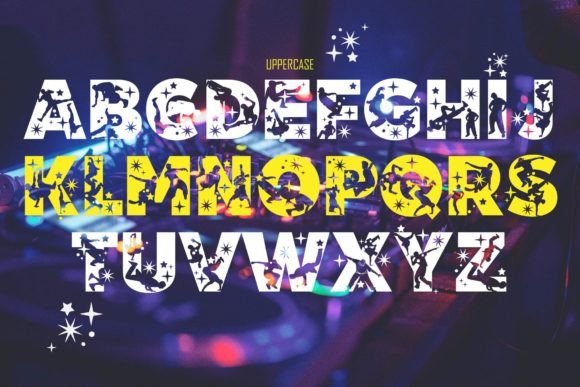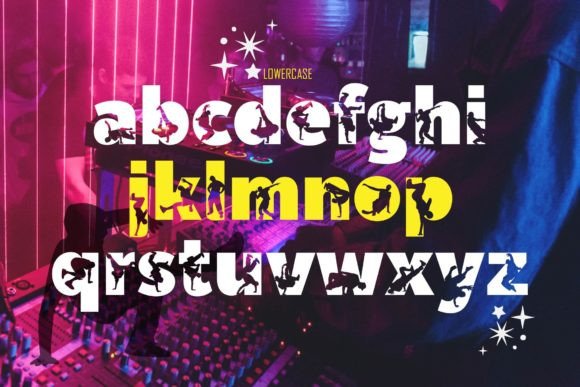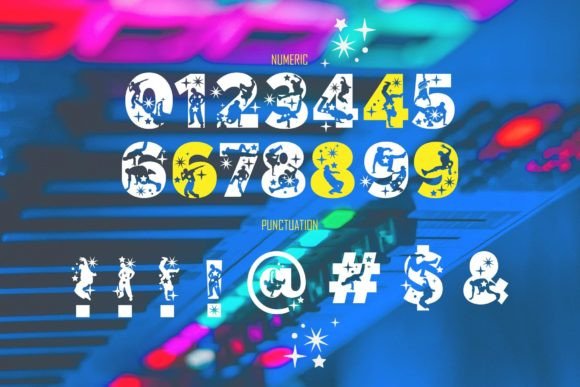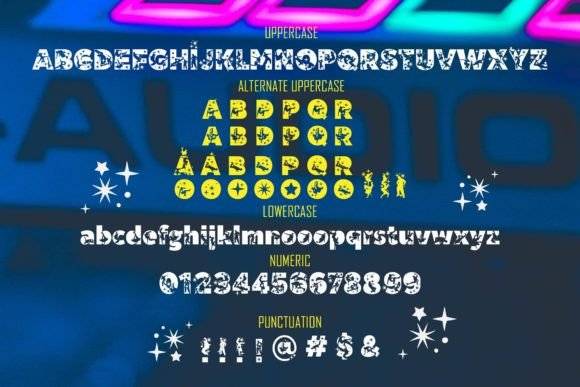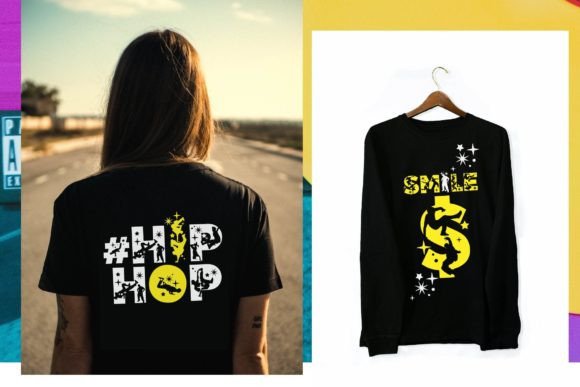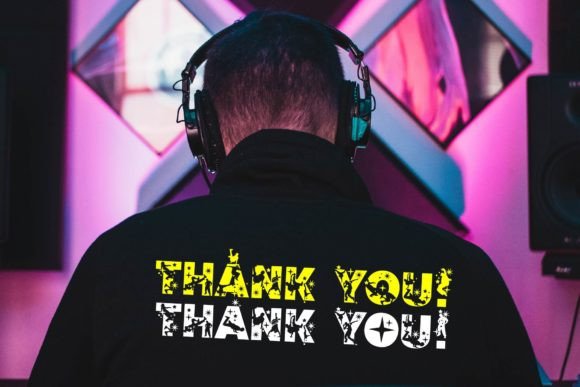
Get Ready to Groove with Break Dancing Font
Enter Break Dancing Font – a bold, cool, and assertive decorative font that will bring fun and energy to any design project. Whether you’re working on a poster, a logo, or a digital graphic, this font is the perfect addition to make your creations stand out. With its PUA encoding, accessing all the glyphs and swashes is a breeze, giving you the freedom to experiment and unleash your creativity.
Break Dancing Font Key Features
- Font Family: Break Dancing Font
- Unique Characteristics: Includes dance-inspired characters, such as breakdancing poses and dance moves, which can be used to create custom dance-themed designs
Break Dancing Font Review
At first glance, I was excited to dive into the Break Dancing Font. The idea of a font that captures the energy and style of breakdancing is awesome. ✨ I love the creative approach to typography and the incorporation of breakdancing-inspired elements. The font is perfect for anyone looking to add a touch of swag to their designs.
However, I do have some concerns. ✨ The font can feel a bit overwhelming when used extensively, and the breakdancing elements may not be to everyone’s taste. Additionally, the font’s compatibility with certain systems and devices may be limited. ⚠️
- Pros:
- Unique and creative approach to typography
- Perfect for adding a touch of swag to designs
- Great for use in headlines and titles
- Cons:
- Can feel overwhelming when used extensively
- Breakdancing elements may not be to everyone’s taste
- Limited compatibility with certain systems and devices
Overall, I think the Break Dancing Font is a fun and creative choice for designers looking to add some personality to their work. However, it’s essential to use it thoughtfully and consider the target audience and design goals. With a bit of restraint and careful planning, this font can add a unique and eye-catching touch to any design.
The Break Dancing font is perfect for adding a touch of fun and playfulness to your designs. Here are some tips and common use cases:
- Use the Break Dancing font for headings or titles to add a sense of energy and excitement.
- Combine the Break Dancing font with other playful fonts for a unique and eye-catching look.
- Use the Break Dancing font for social media graphics, posters, or flyers to grab attention and stand out from the crowd.
Pacifico is a beautiful, handwritten font that’s perfect for use in designs where you want to convey a sense of relaxation and calmness. It’s great for use in titles, headings, and other text elements where you want to add a touch of serenity and tranquility. Pacifico is similar to Break Dancing Font in its informal, handwritten feel, but it has a more laid-back and effortless appearance.
Cream Soda is a fun, cursive font that’s perfect for use in designs where you want to add a touch of playfulness and whimsy. It’s great for use in titles, headings, and other text elements where you want to convey a sense of fun and excitement. Cream Soda is similar to Break Dancing Font in its cursive feel, but it has a more casual and carefree appearance.
Q: Can I customize Break Dancing Font to fit my specific design needs?